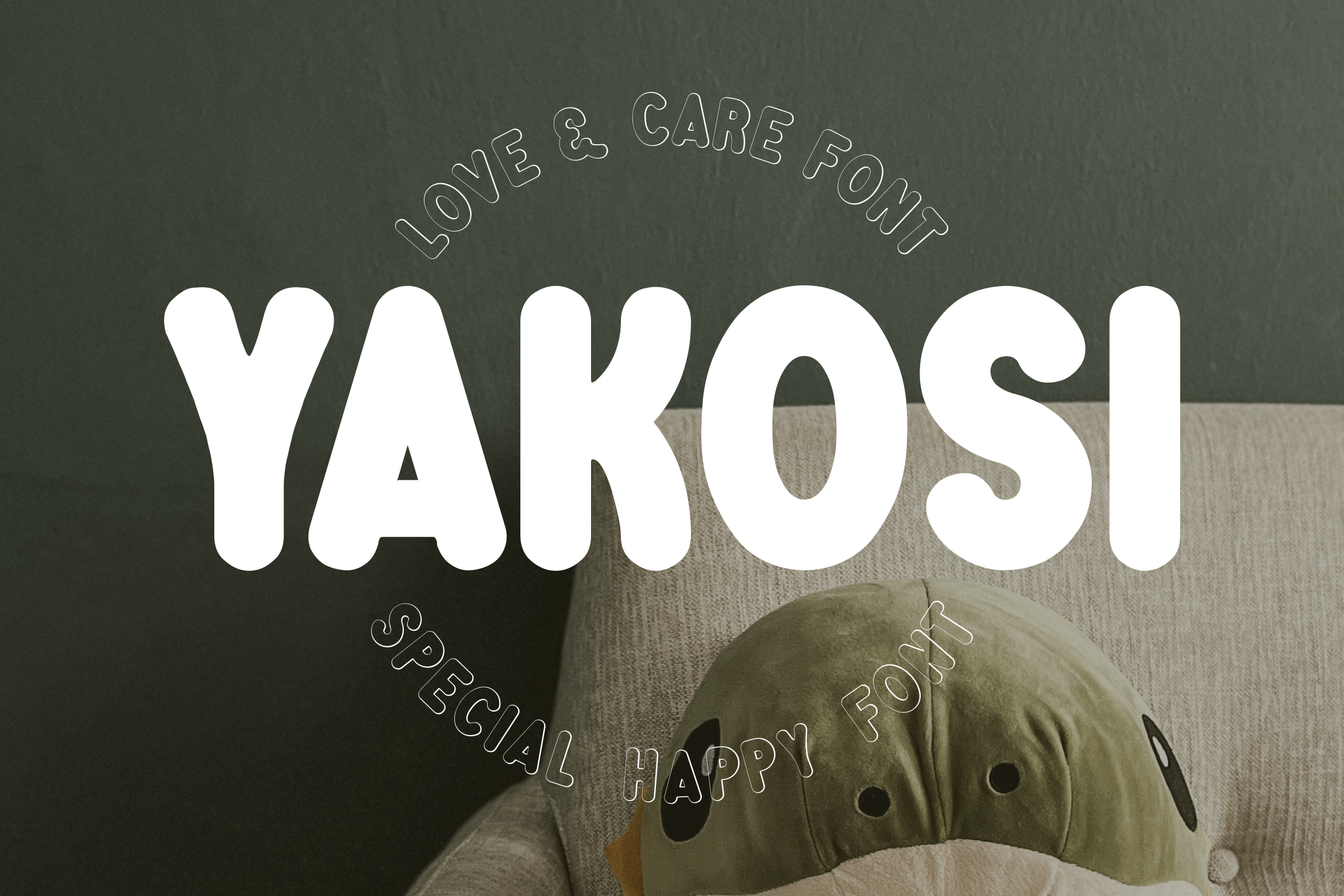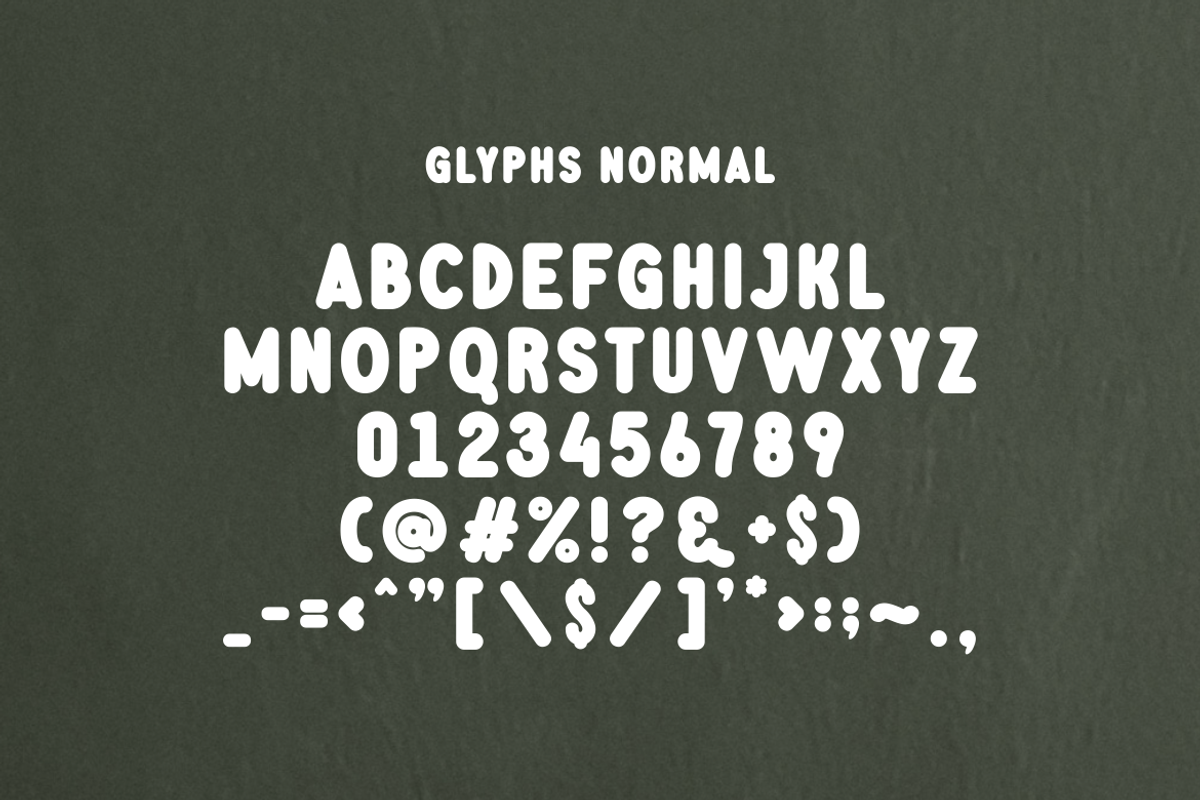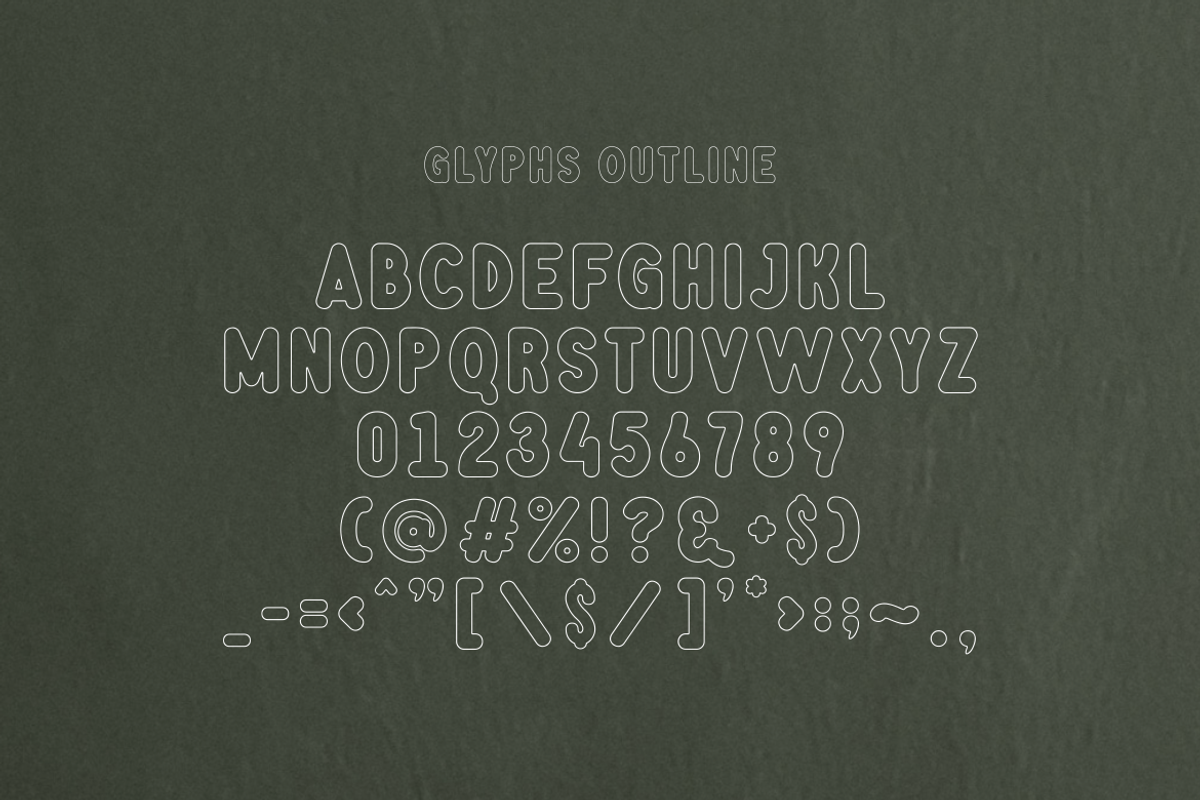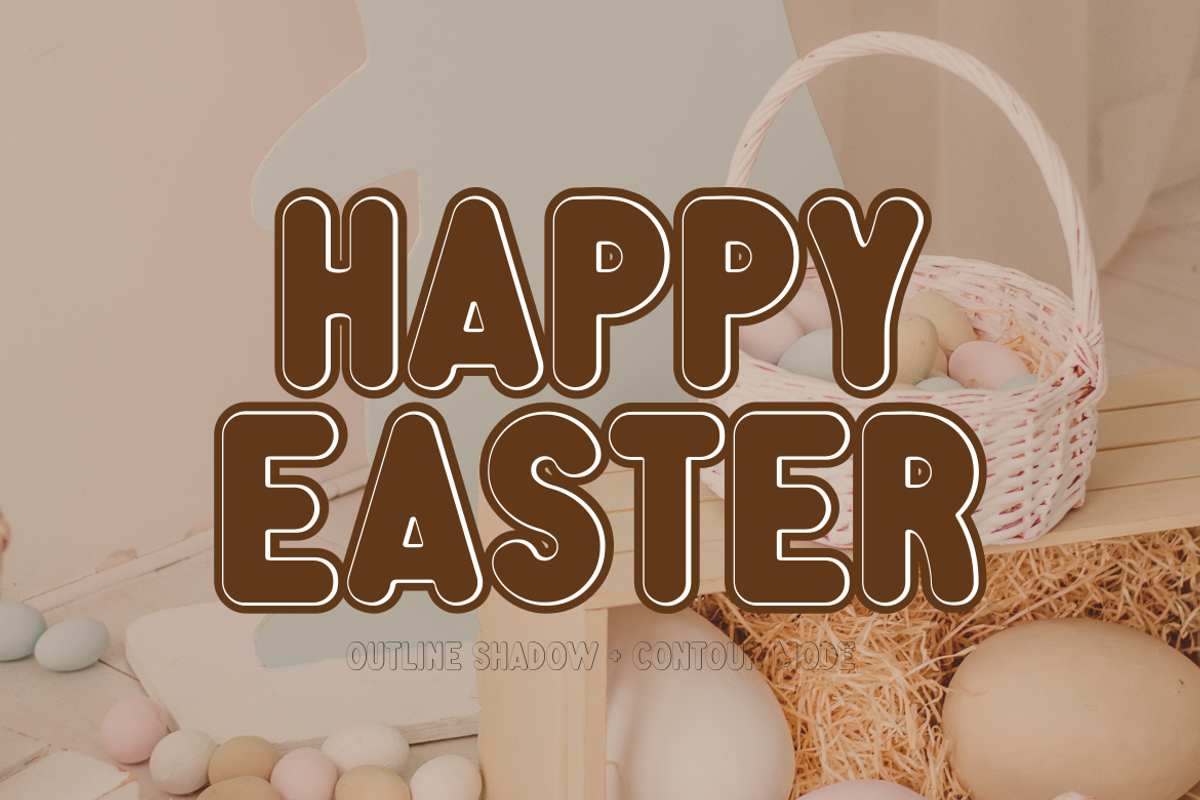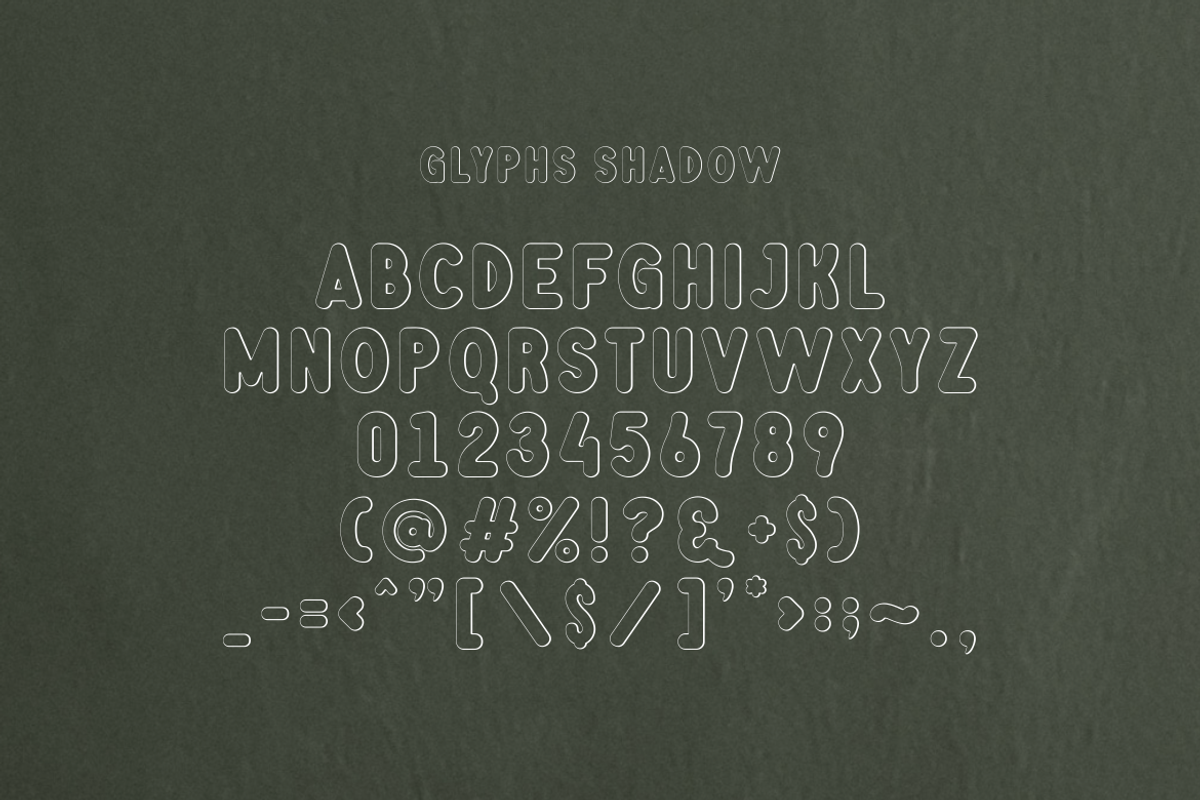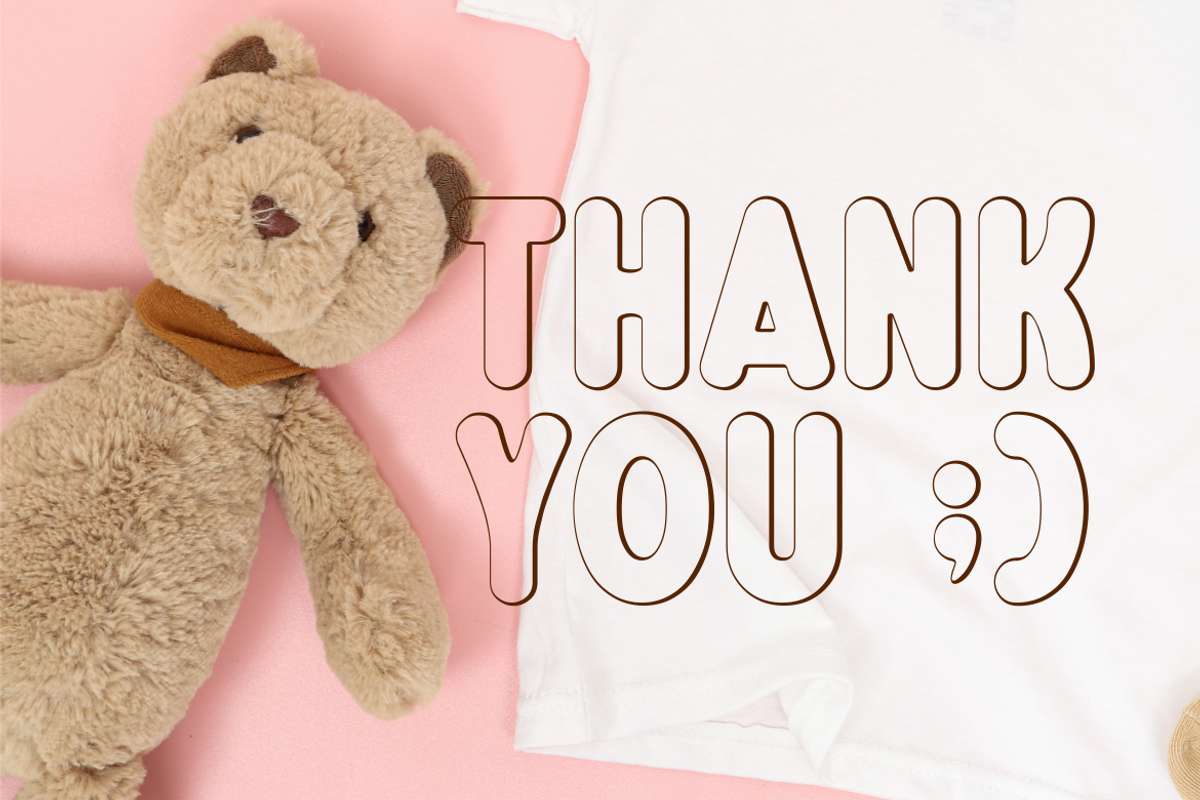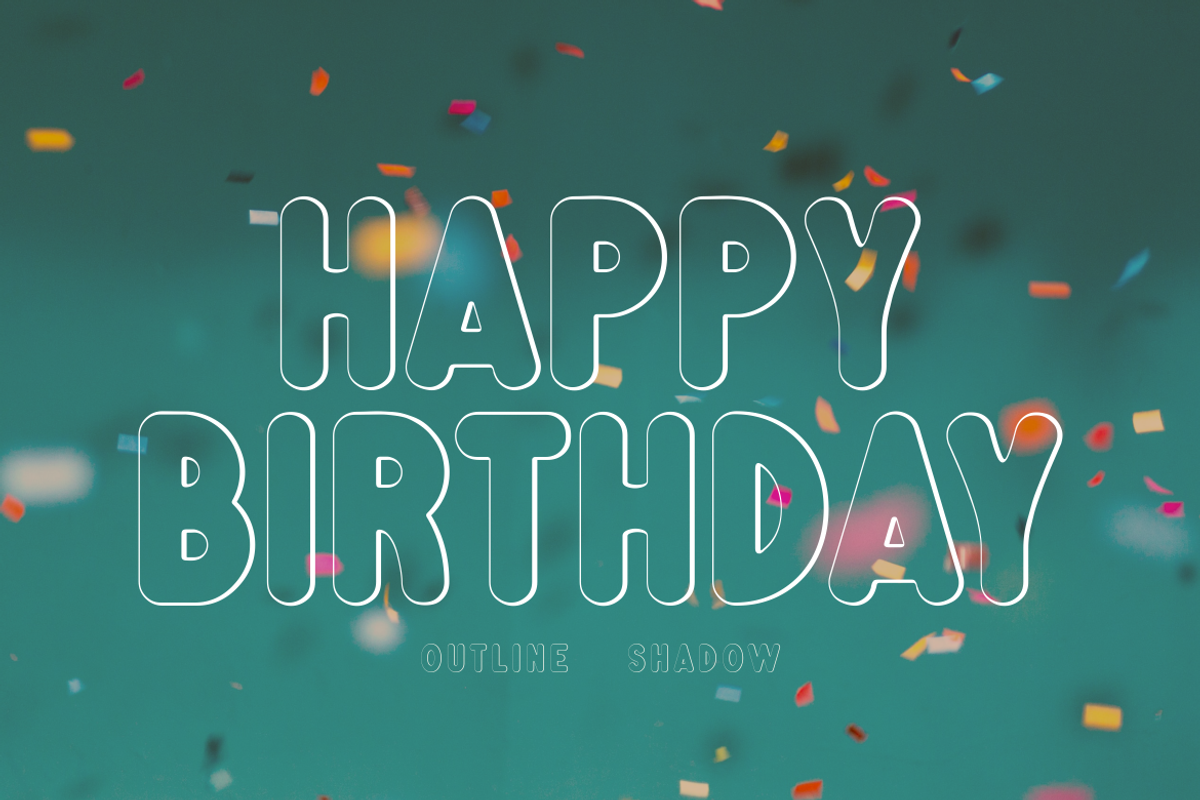
Yakosi 3 Style Childs Edition Font
Introducing Yakosi - an enchanting child-friendly font perfect for capturing the very essence of delightful moments. From joyful birthday celebrations and beyond, this unique font breathes life into your moments, making them just that much more special. With a charming character all its own, Yakosi has an ambiance threaded with playful jubilance and heartfelt reminiscence. Yakosi is more than just a typeface, it's an emcee to your joyful celebrations.